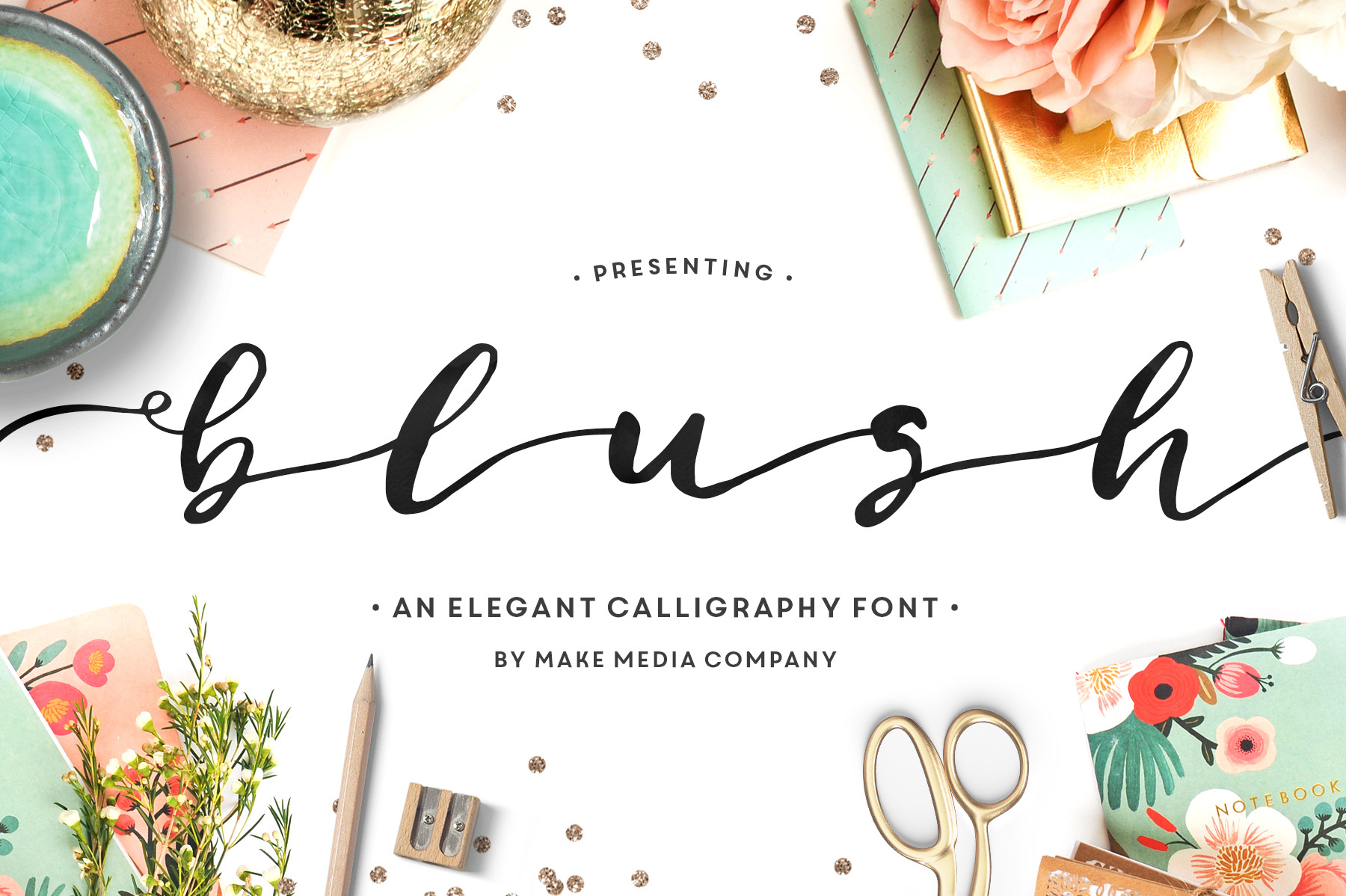
Blush looks beautiful on branding materials, logos, wedding invitations, greeting cards and more! And if you're looking for a unique, new logo, check out Blush Typeface + Logo Kit here: http://crtv.mk/a0LmM